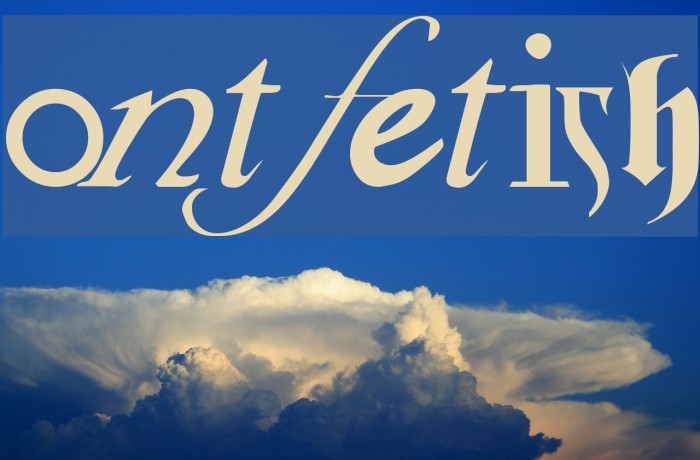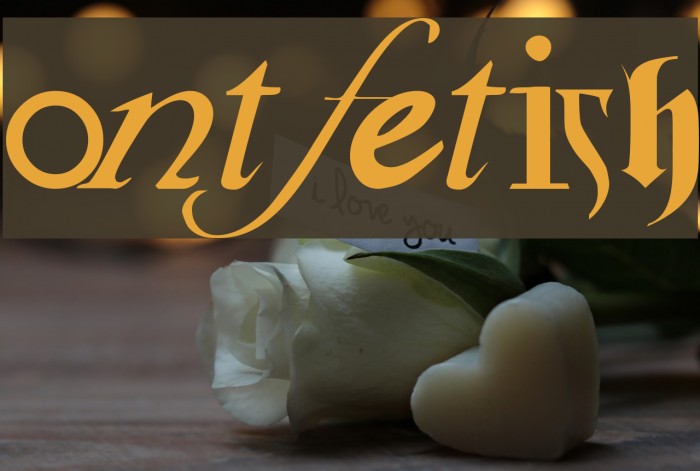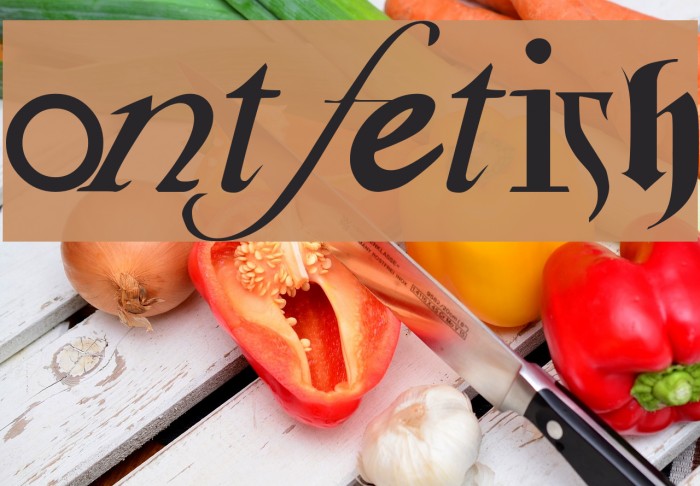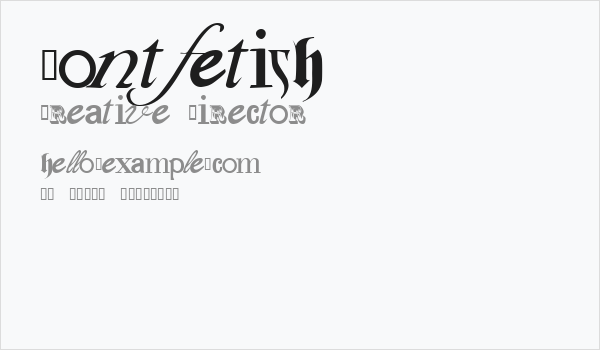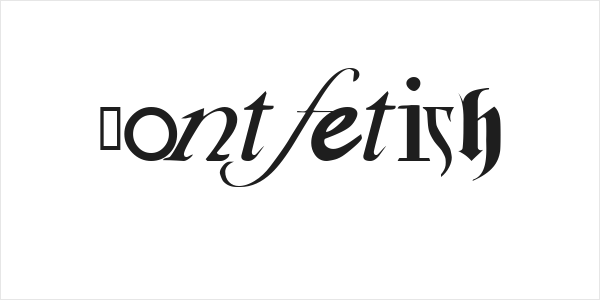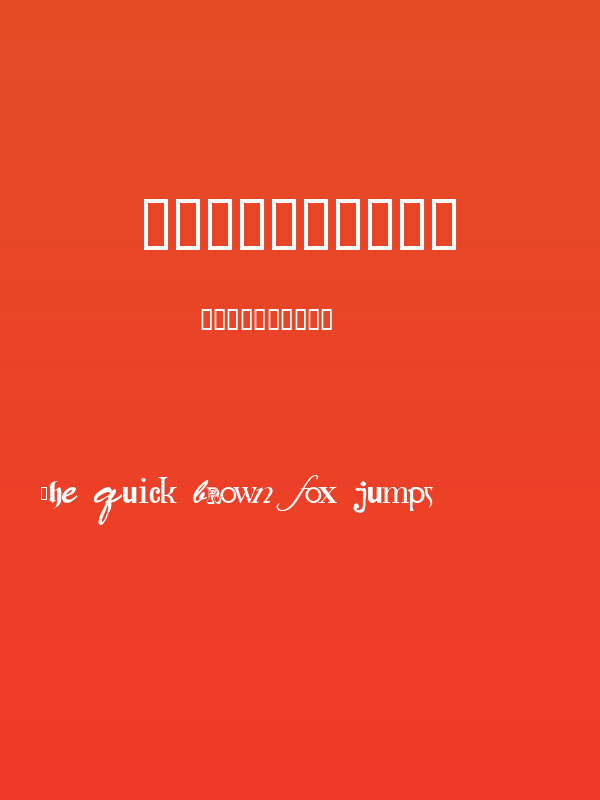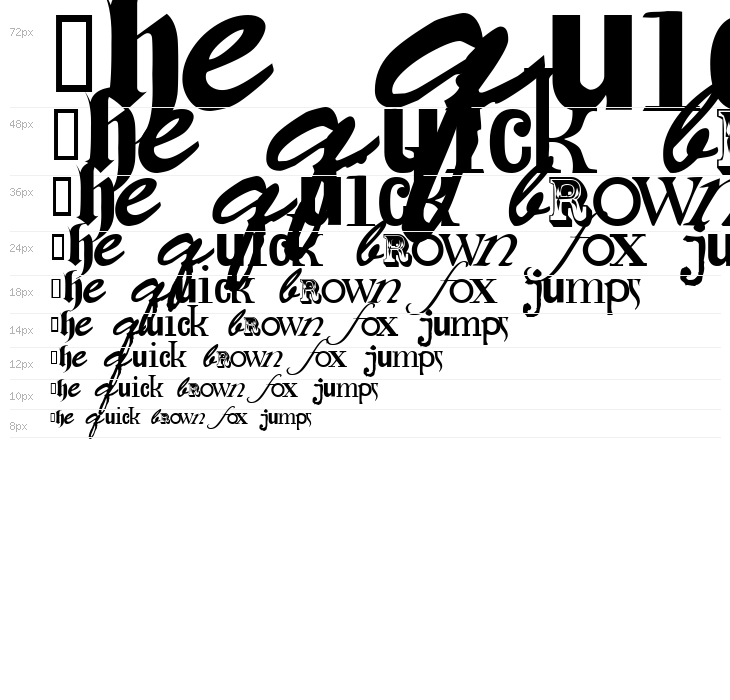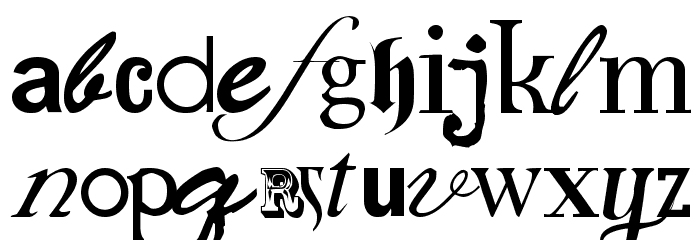
Fontfetish Font
Fontfetish Description
This font features a dynamic and eclectic mix of styles, combining elements of script and decorative typography. The lowercase letters exhibit a flowing, cursive style with varying stroke thickness, adding a sense of movement and elegance. Some characters have unique, ornate embellishments, particularly noticeable in the 'R' and 'Q', which stand out with their intricate designs. The font's playful and artistic nature makes it suitable for creative projects where a touch of flair is desired. Its diverse character set provides versatility, allowing for expressive and visually engaging text compositions.
| Use Case | Headlines, Logos, Artistic projects |
| Proposed Projects | Ideal for creative projects such as invitations, branding, artistic posters, and decorative headlines. |